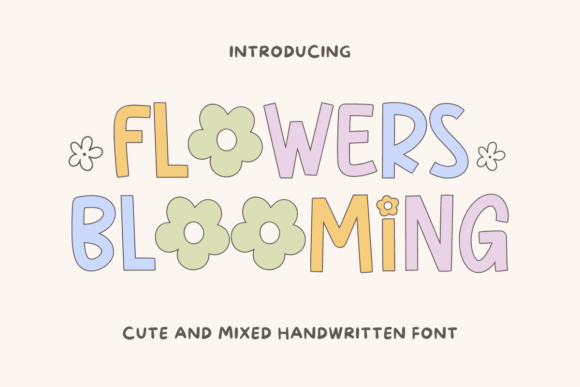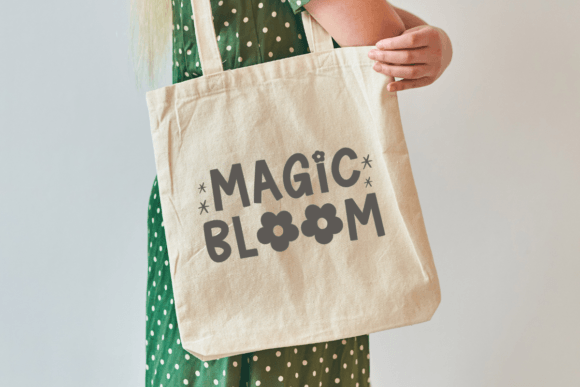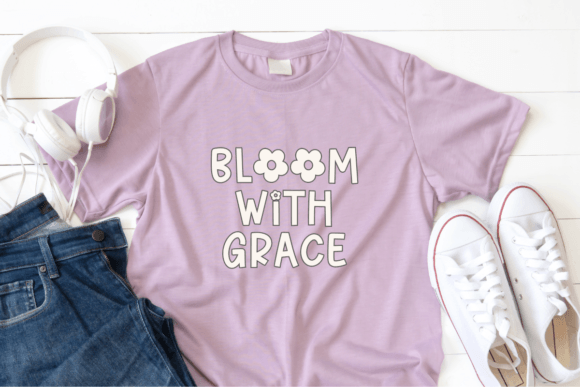
Flowers Bloooming Font
About the Flowers Bloooming Font
The wait is over! The incredible Flowers Bloooming Font is now available for your design toolkit. Flowers Blooming is a cute display font. Evocative of a relaxing spring break. Its attractive versatility by combining upper and lower case letters, works wonders in your various design projects such as crafts, t-shirts, children’s t-shirts, home decorative, headlines, branding, posters, mugs, tote bags, quotes, and many more!
Flowers Blooming’s playful, rounded forms make it ideal for headlines, branding projects targeting a young demographic, and packaging for products with a lighthearted feel. It excels in short, impactful text applications like posters and social media graphics. However, its low x-height and decorative elements make it unsuitable for body text or UI elements requiring high readability.
Consider pairing Flowers Blooming with a clean sans-serif like Lato for a balanced contrast, or a more playful script font such as Pacifico to enhance its whimsical nature. For a sophisticated touch, a classic serif like Playfair Display can add a layer of elegance.
Its overall personality is cheerful and friendly, best suited for brands emphasizing youthfulness, creativity, or a sense of fun. Avoid using it for projects requiring a formal or serious tone.
Flowers Bloooming Font Usage Examples
Flowers Bloooming Font Example